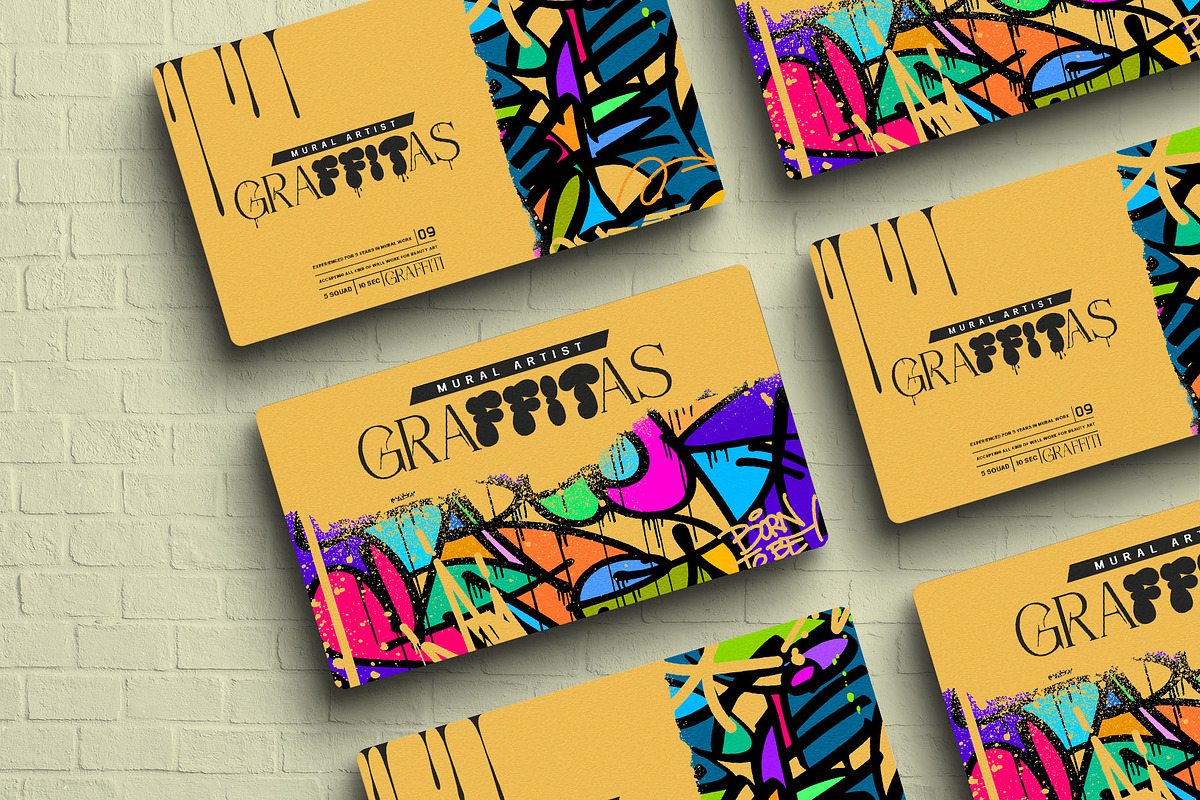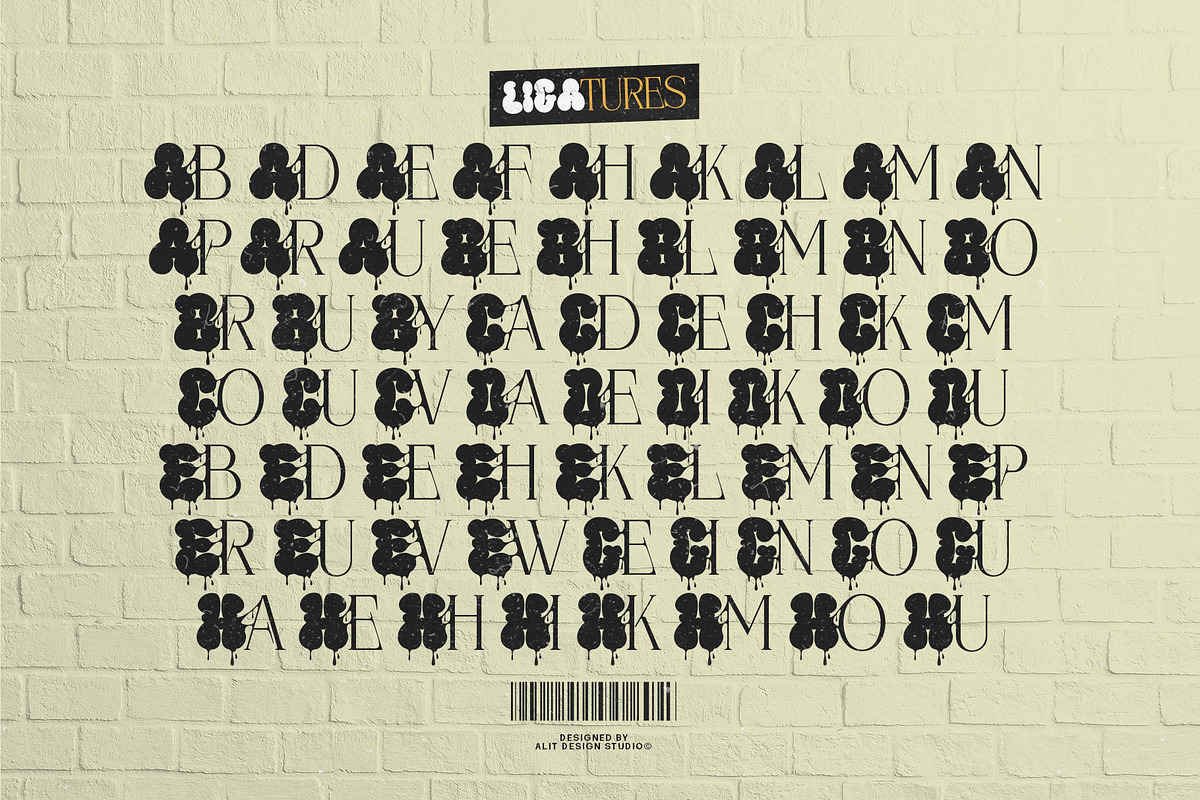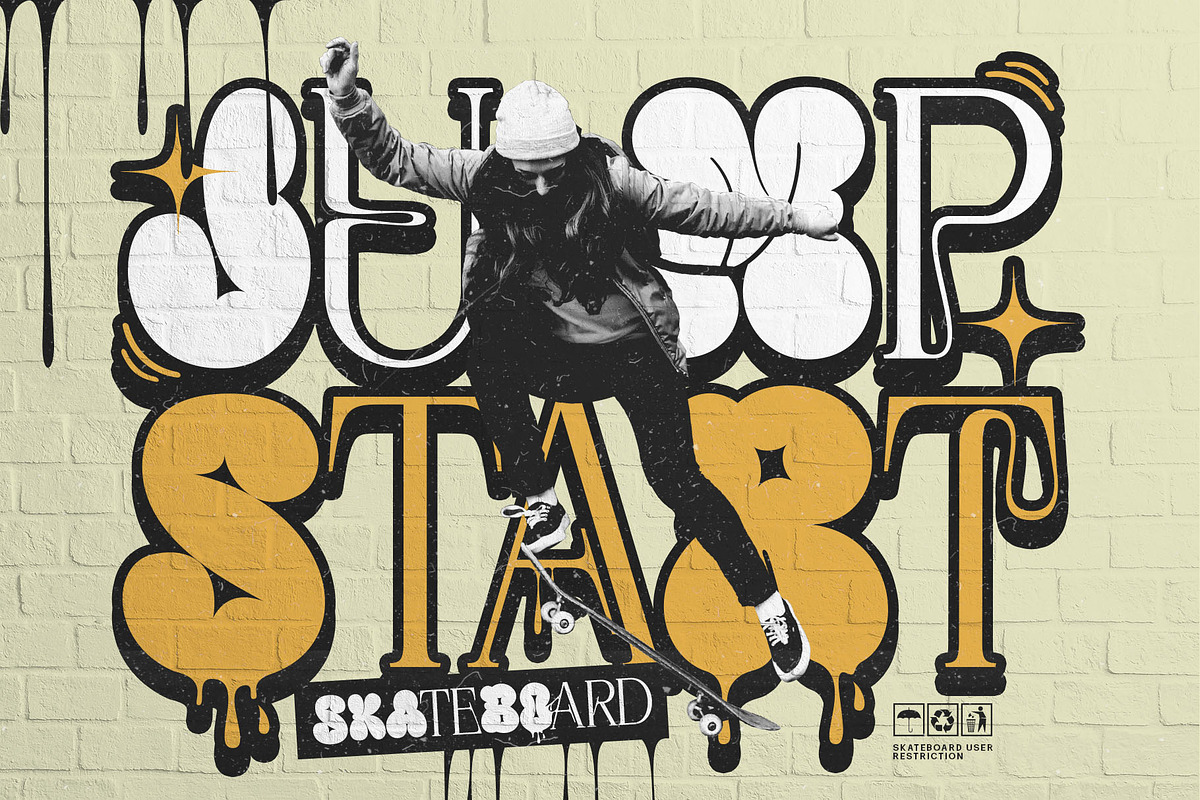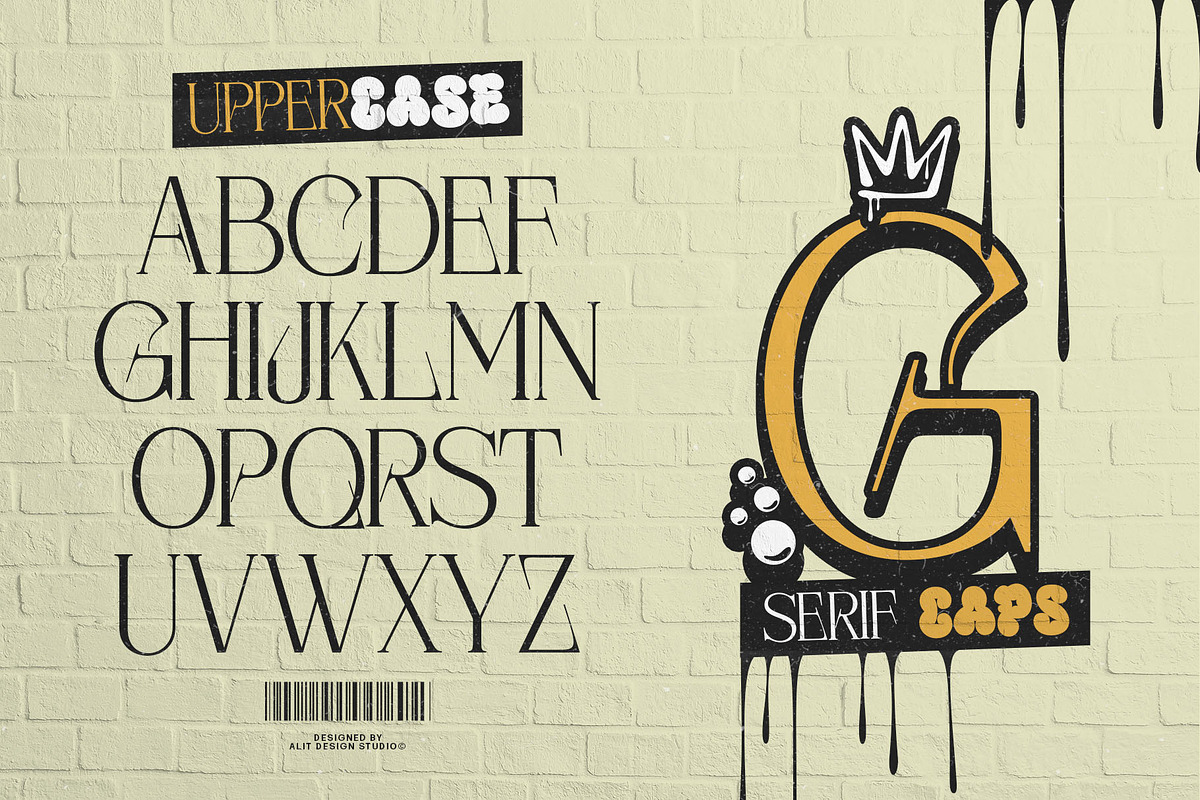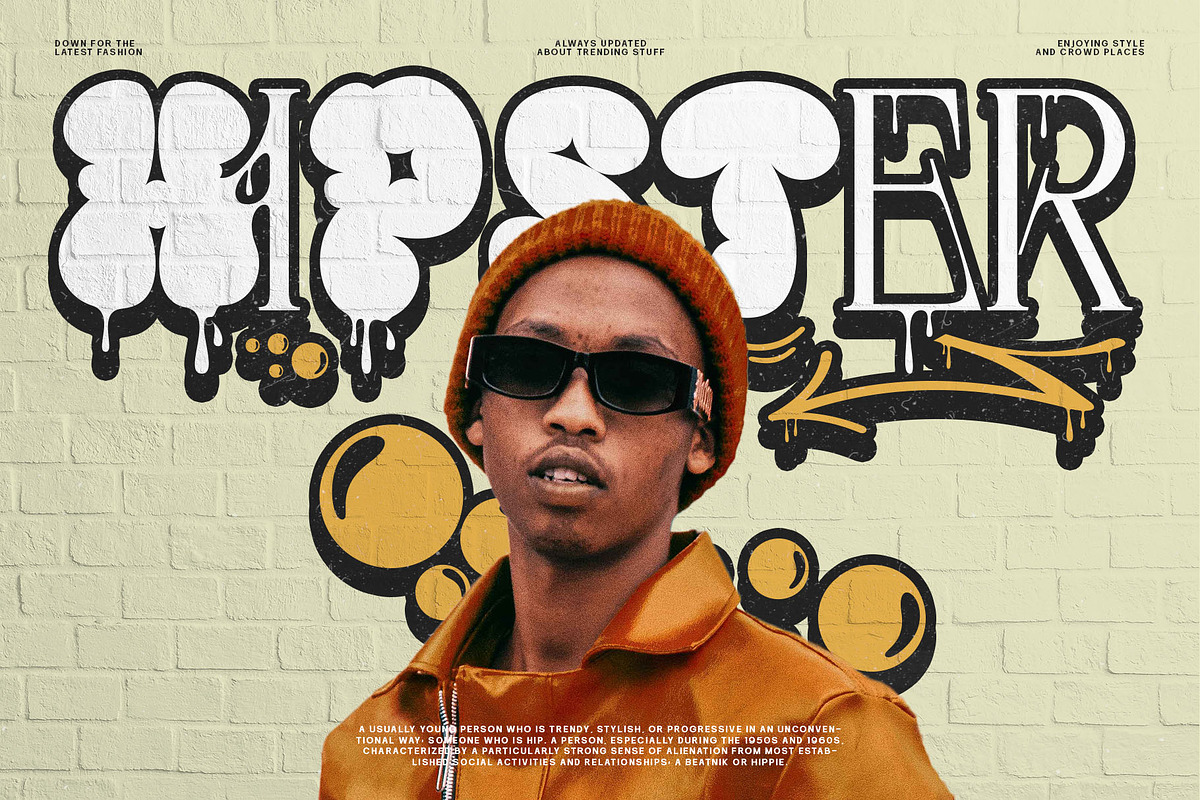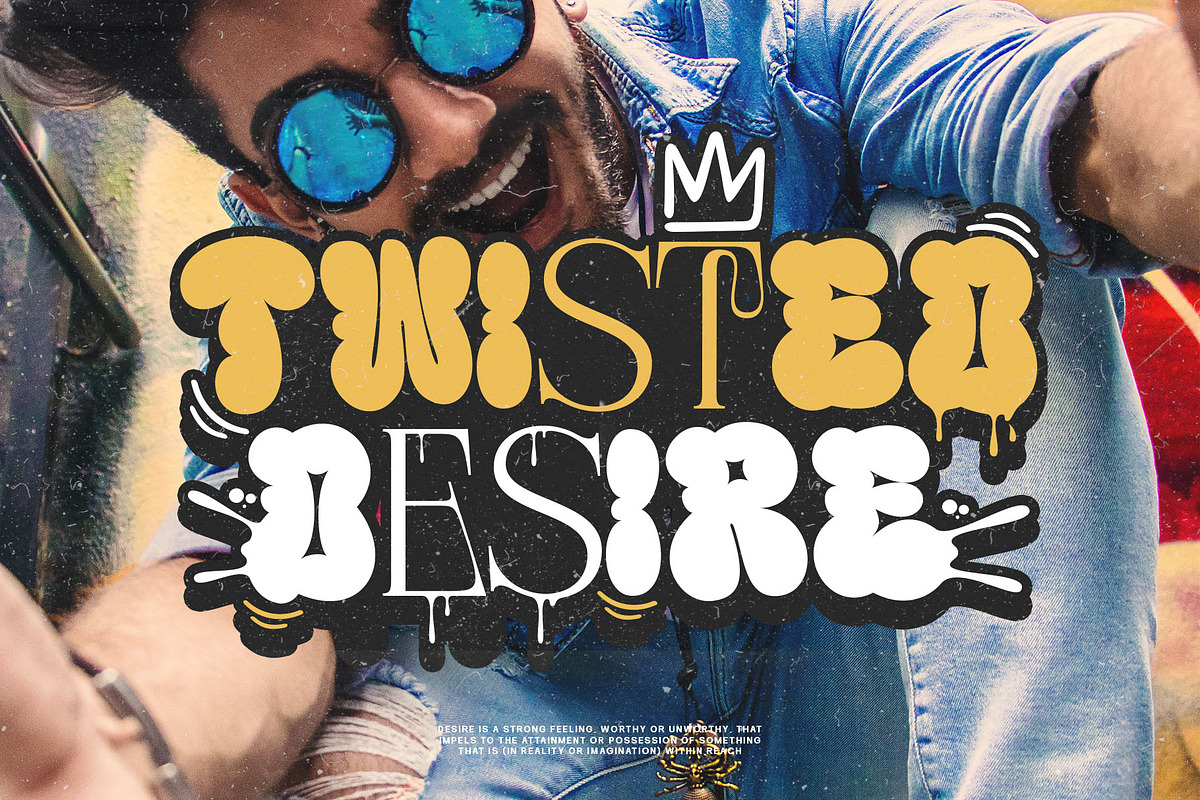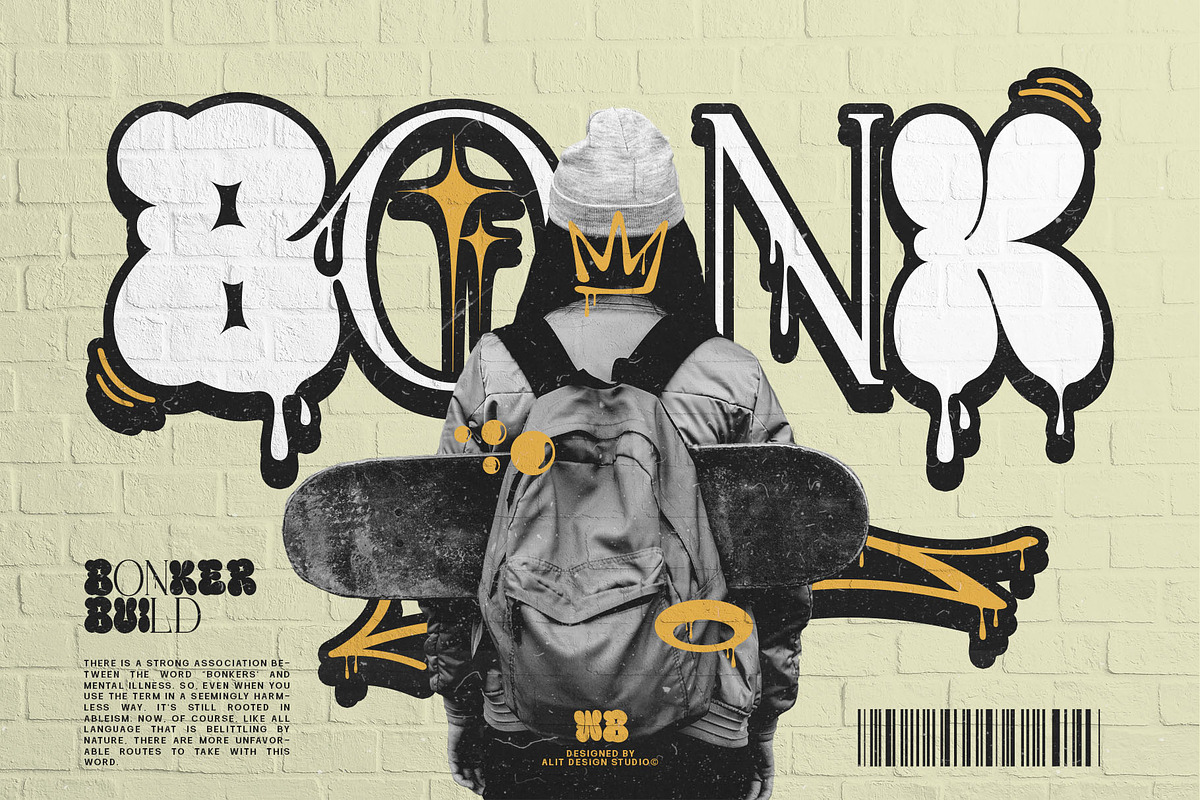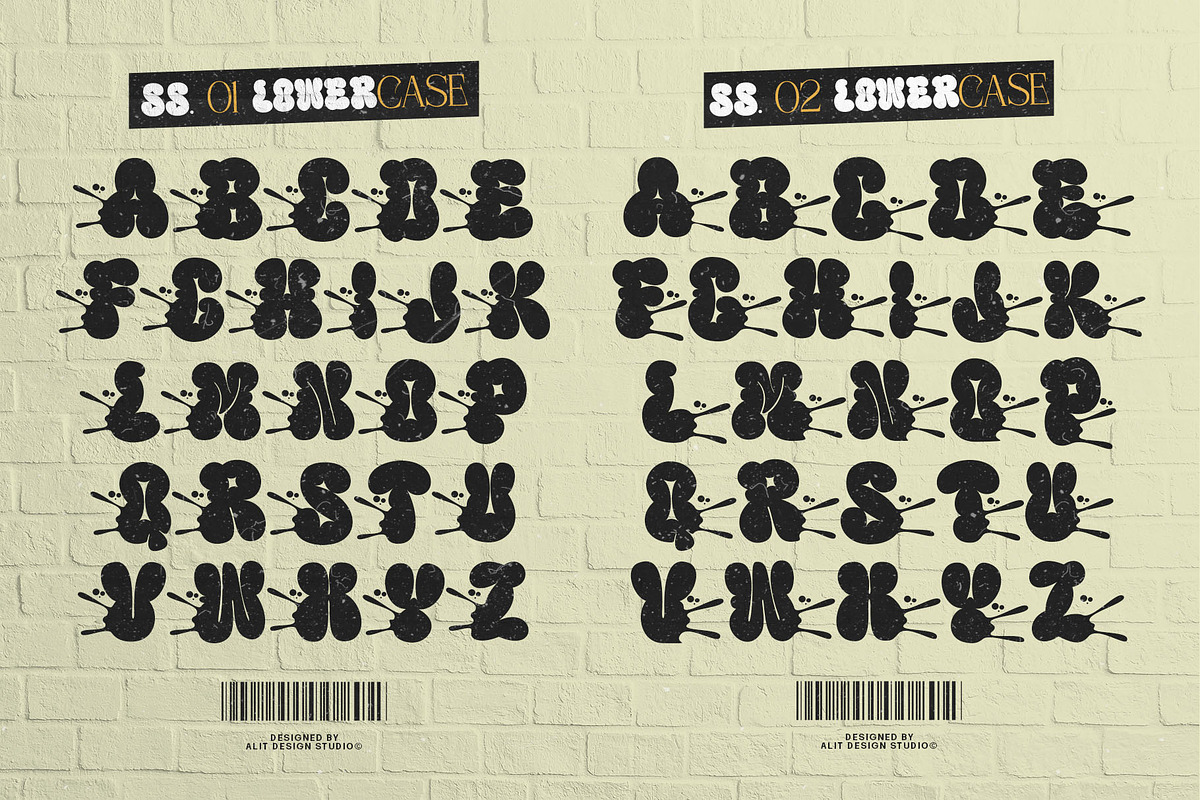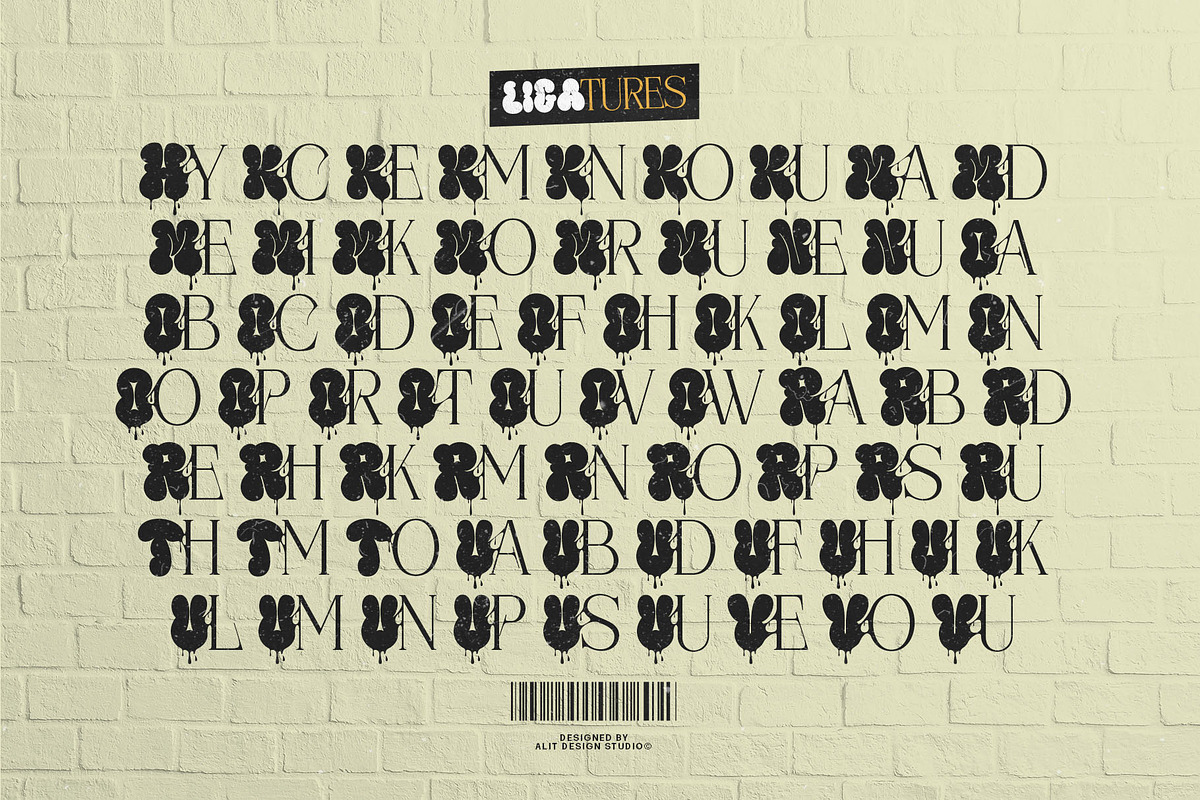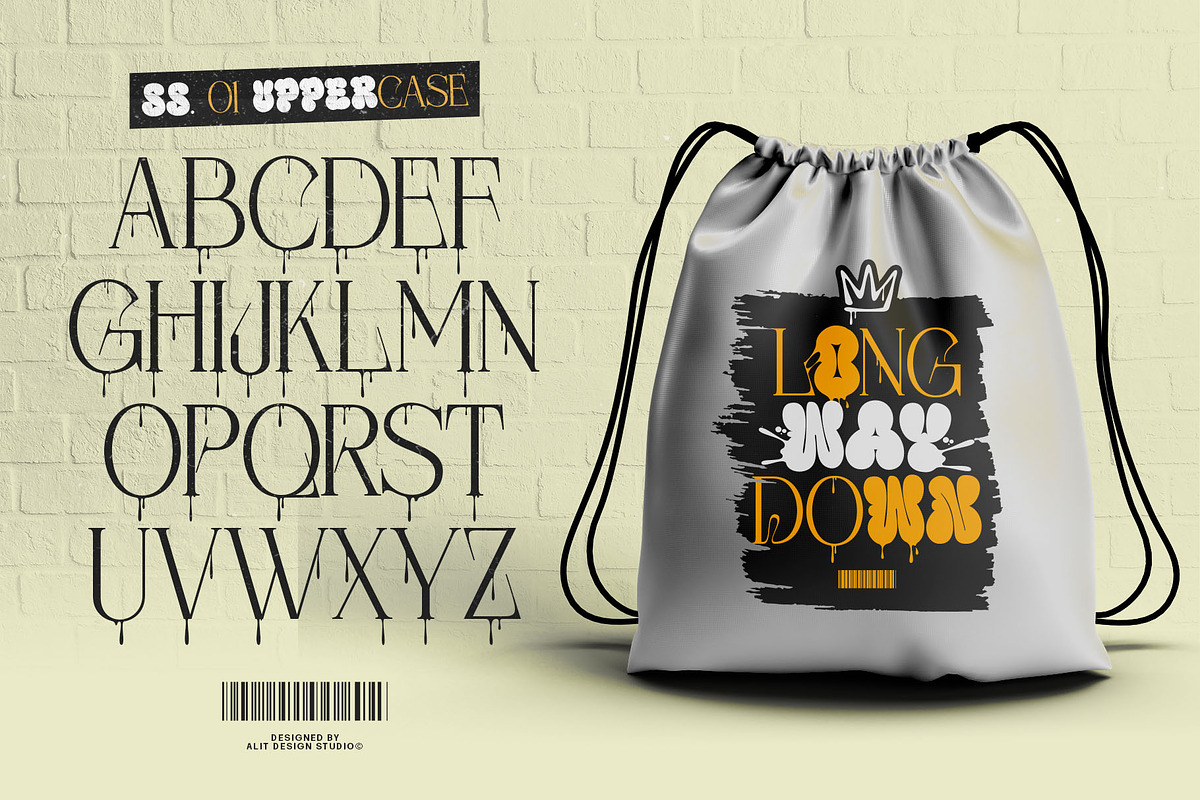
Warior Bomber Typeface
"Warior Bomber" is a striking and expressive font that seamlessly merges the edgy aesthetic of bubble graffiti with the sophistication of a unique serif typeface. Its design embodies a fusion of urban street art with a touch of refined elegance, making it a perfect choice for projects seeking a balance between rebellion and sophistication.
Each character in "Warior Bomber" is meticulously crafted to resemble sticky rubber, giving the impression that they've been molded by hand onto a surface. The letters carry a sense of dynamism and fluidity, as if they're ready to burst forth from the page with energy and attitude.
The font features an array of cool ligatures, adding to its versatility and allowing for endless creative possibilities in design projects. These ligatures seamlessly connect characters, enhancing the flow of text and adding a touch of authenticity to the graffiti-inspired aesthetic.
The serif elements of "Warior Bomber" bring a unique twist to its overall design, introducing a level of refinement and structure amidst the playful chaos of the bubble graffiti theme. The serifs are bold and expressive, adding a sense of drama and impact to each letter while maintaining a cohesive visual style.
Overall, "Warior Bomber" is a font that defies convention, blending the rebellious spirit of bubble graffiti with the timeless elegance of serif typography. Its expressive design and attention to detail make it a standout choice for projects that demand a bold and distinctive look.